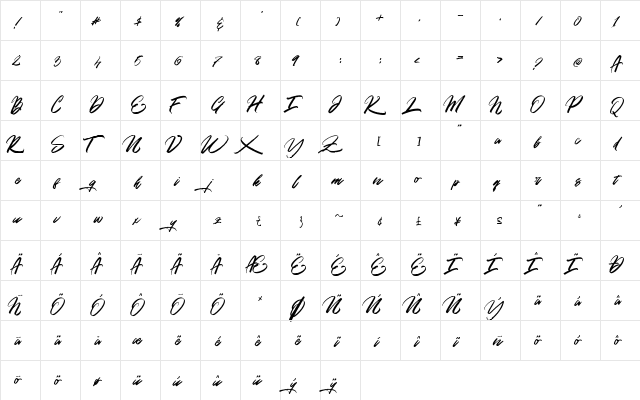
Gold Brush Regular
| Foundry | thirtypath |
| Designer | thirtypath |
Design Context for Gold Brush Typeface
Gold Brush brings a calligraphic fluidity to the page — its connecting strokes and expressive curves give it an unmistakably human quality.